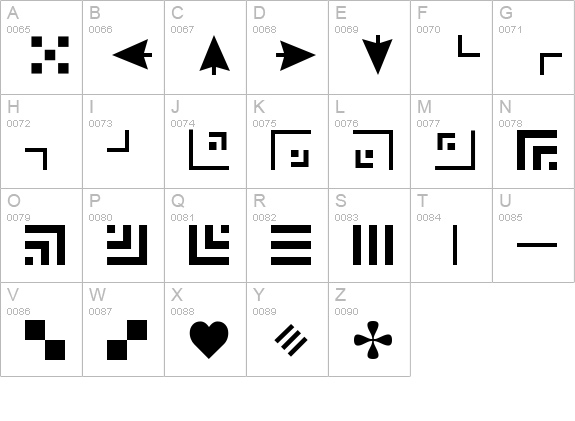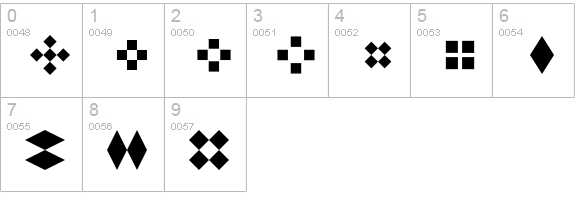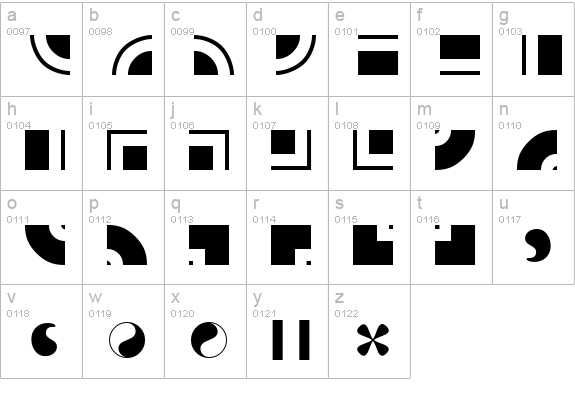
Borderbats Geo Font Details
Borderbats Geo font is a unique and creative typeface that combines geometric shapes with border elements to create a visually striking design. This font is perfect for adding a touch of modernity and playfulness to your projects, whether it's for branding, advertising, or personal use. What sets Borderbats Geo font apart is its versatility and ability to stand out in any design setting. With its crisp lines and intricate details, this font is sure to capture the attention of your audience and make a lasting impression. The best part? Borderbats Geo font is completely free to download at FontsMarket.com. So go ahead and explore the endless possibilities of this innovative typeface and elevate your designs to the next level with Borderbats Geo font.